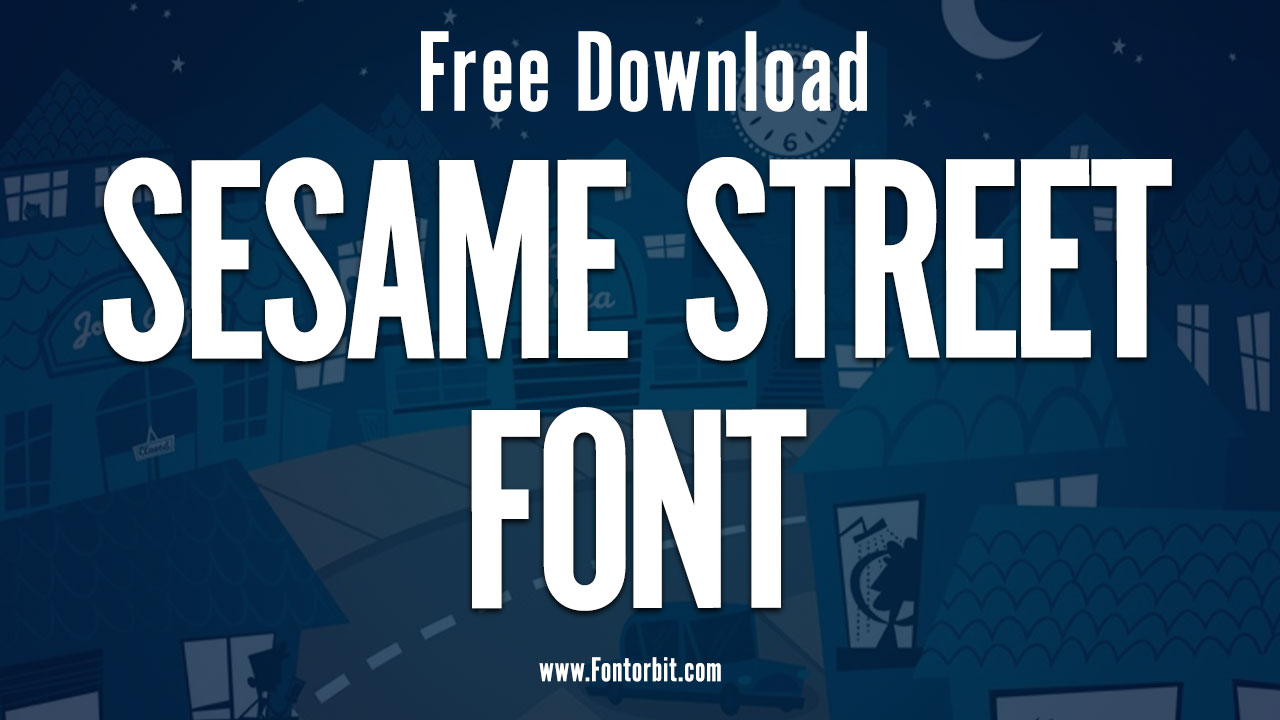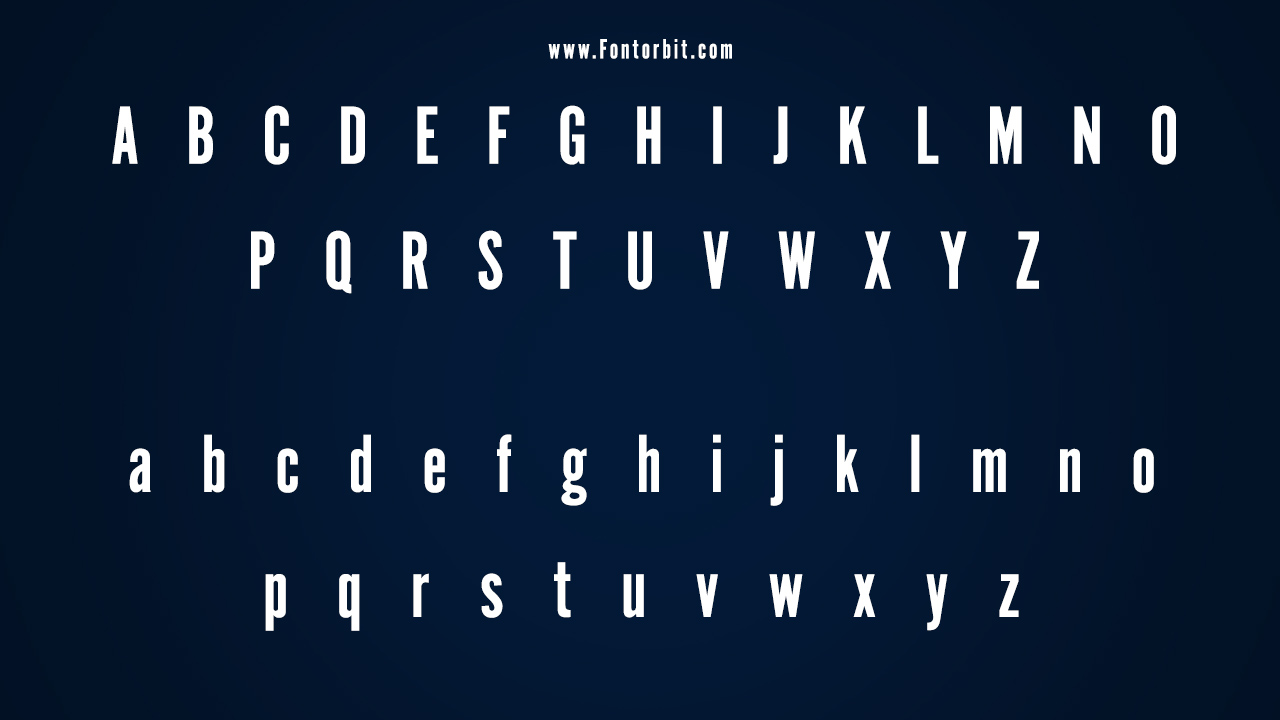
The Sesame Street Font, associated with the iconic children’s TV show “Sesame Street,” is a distinctive typeface that exudes a playful yet professional design.
Although the official font used in the show’s logo is Interstate Bold Compressed, designed by Tobias Frere-Jones, similar versions are available for free personal use. These replica fonts capture the original logo’s bold and approachable design elements, making them perfect for creative projects.
The Sesame Street Font is often available in TTF format, with a strong, clear design reminiscent of the show’s educational and playful nature. The bold, compressed letterforms make it ideal for titles, headings, and any project requiring readability paired with a fun, approachable vibe.
The Sesame Street Font, based on the Interstate Bold Compressed typeface, is a fantastic option for creative and educational projects.
Whether you’re working on branding, social media graphics, or promotional content, this typeface adds a bold yet friendly touch that captures the charm of the beloved Sesame Street show. Its clarity and strength make it versatile for various design needs while maintaining a playful essence.
1.How To Identify The Sesame Street Font From Similar Fonts?
The Sesame Street Font features a bold, compressed style with clear letterforms. It resembles road signage fonts, making it distinct from more playful fonts but still approachable for children’s content.
2.What Are The Origins Of The Sesame Street Font?
The official Sesame Street logo font is Interstate Bold Compressed, designed by Tobias Frere-Jones. The font is based on the U.S. highway signage system, chosen for its clear readability and familiar design.